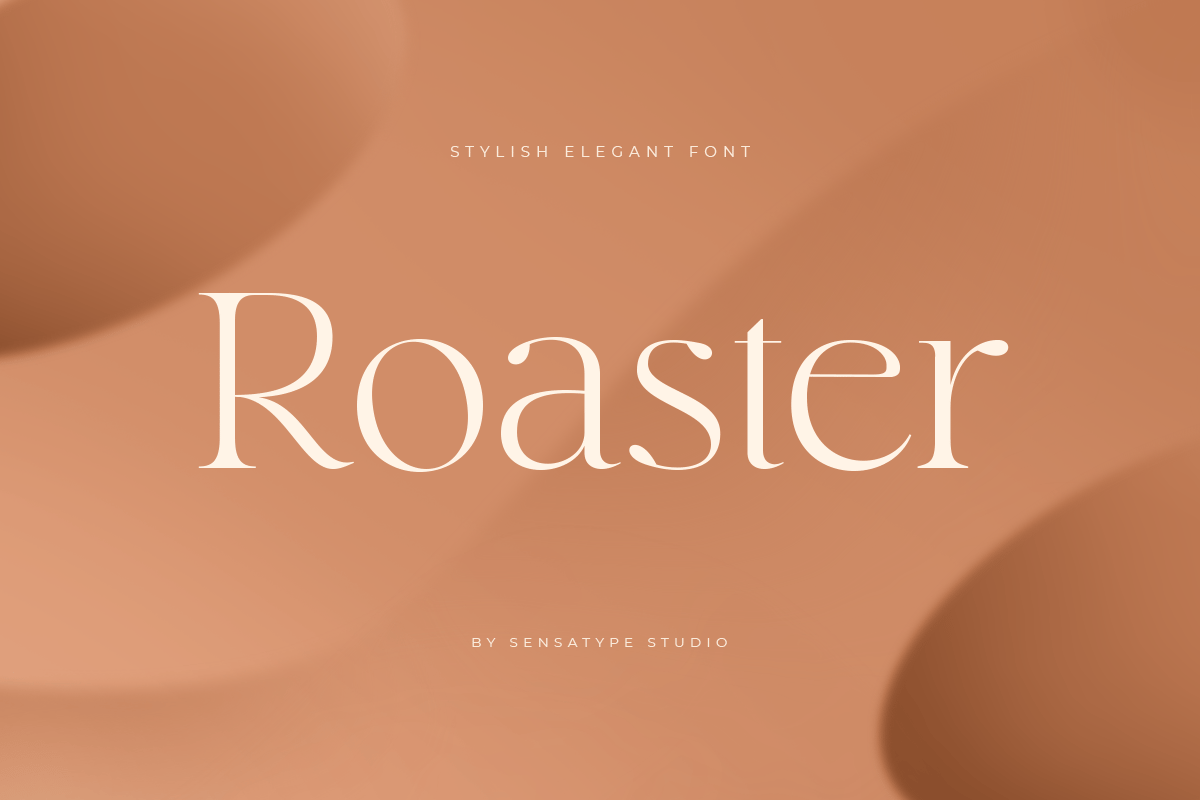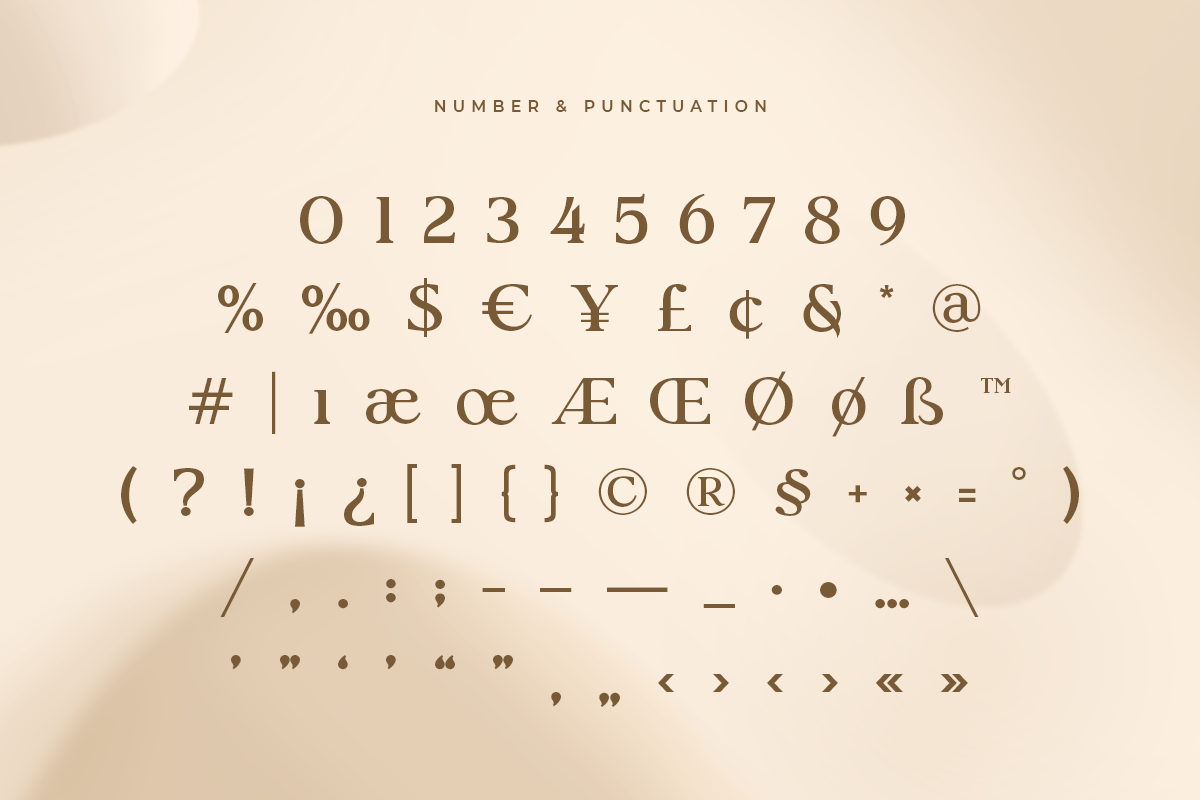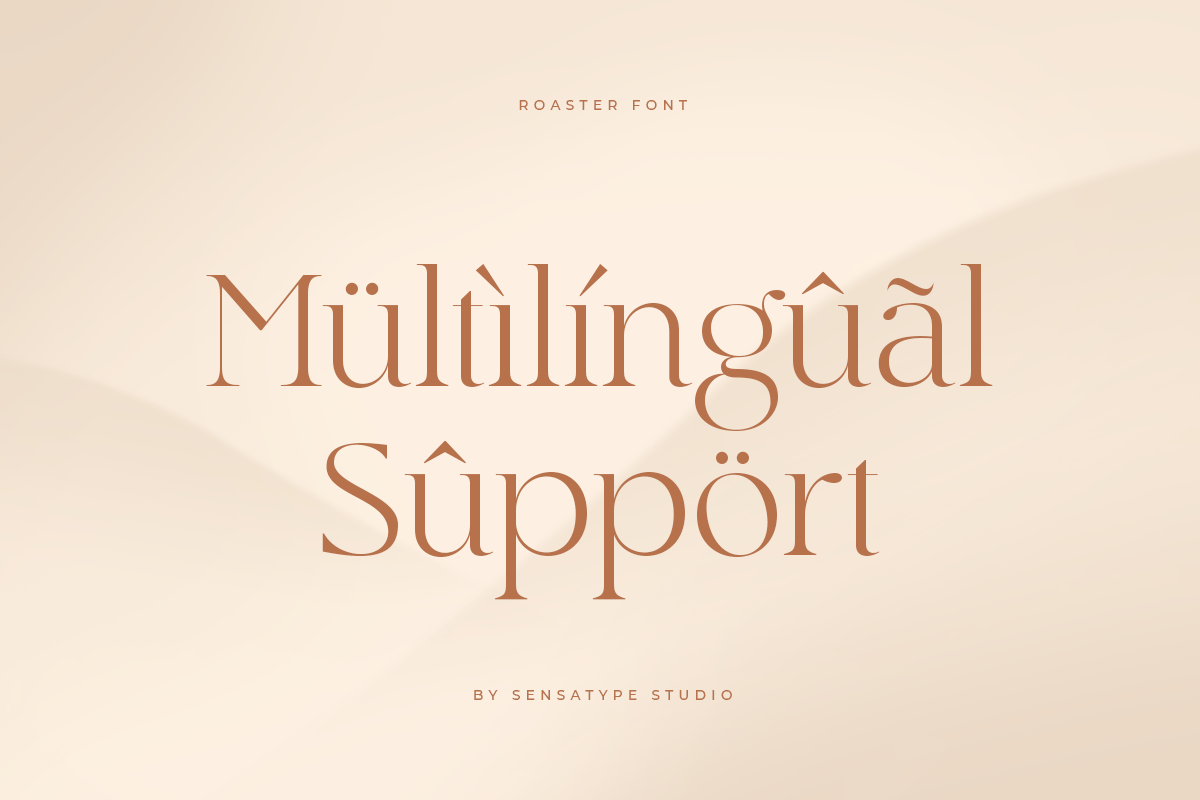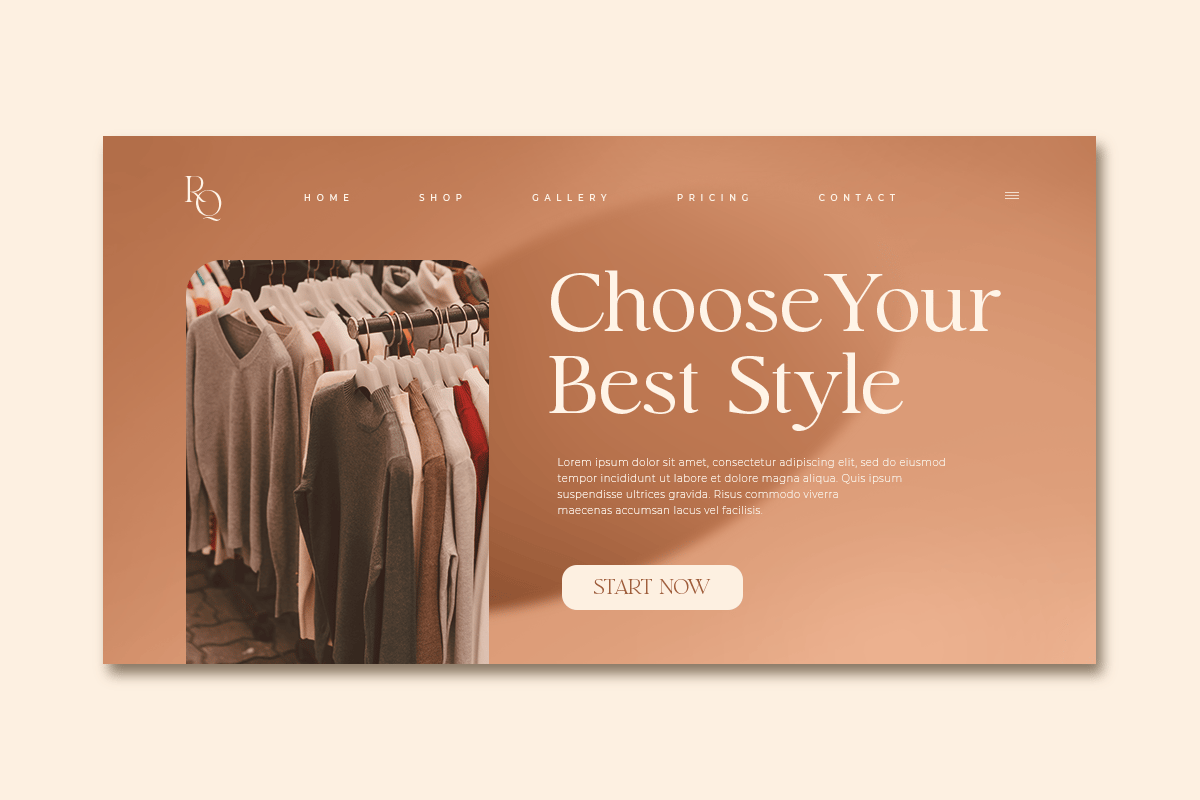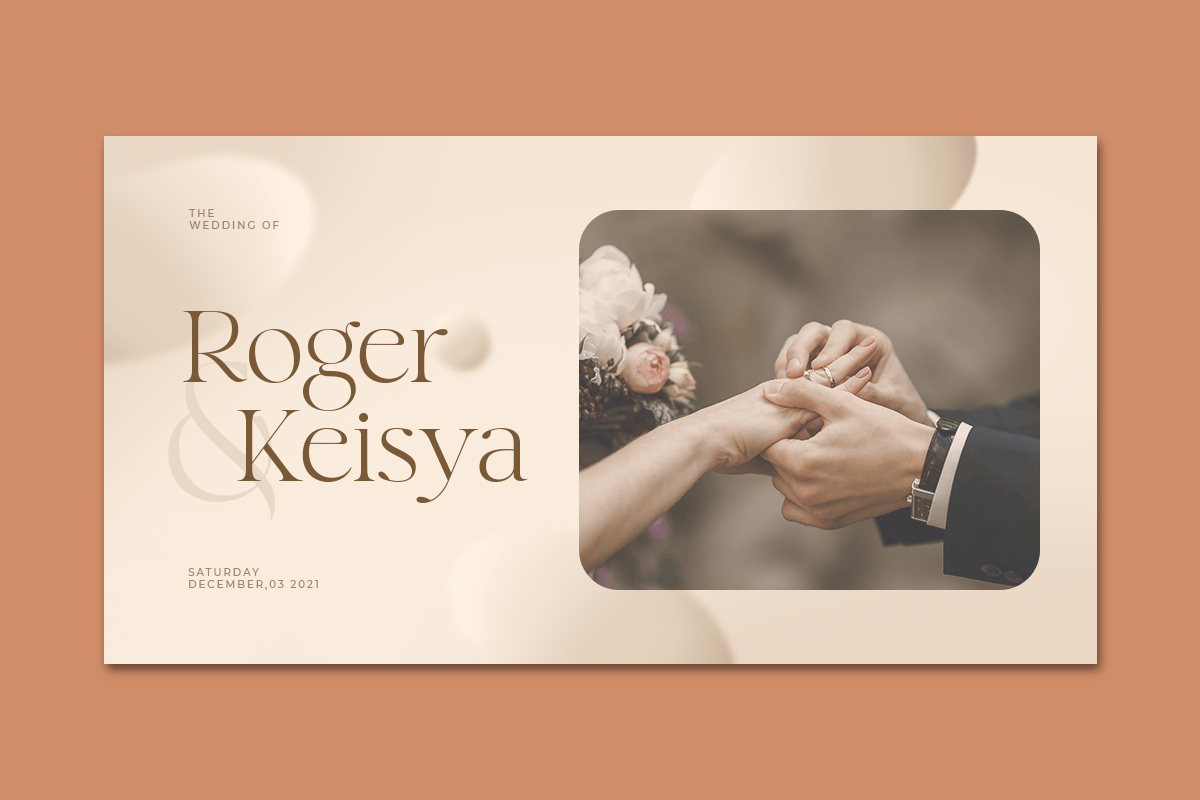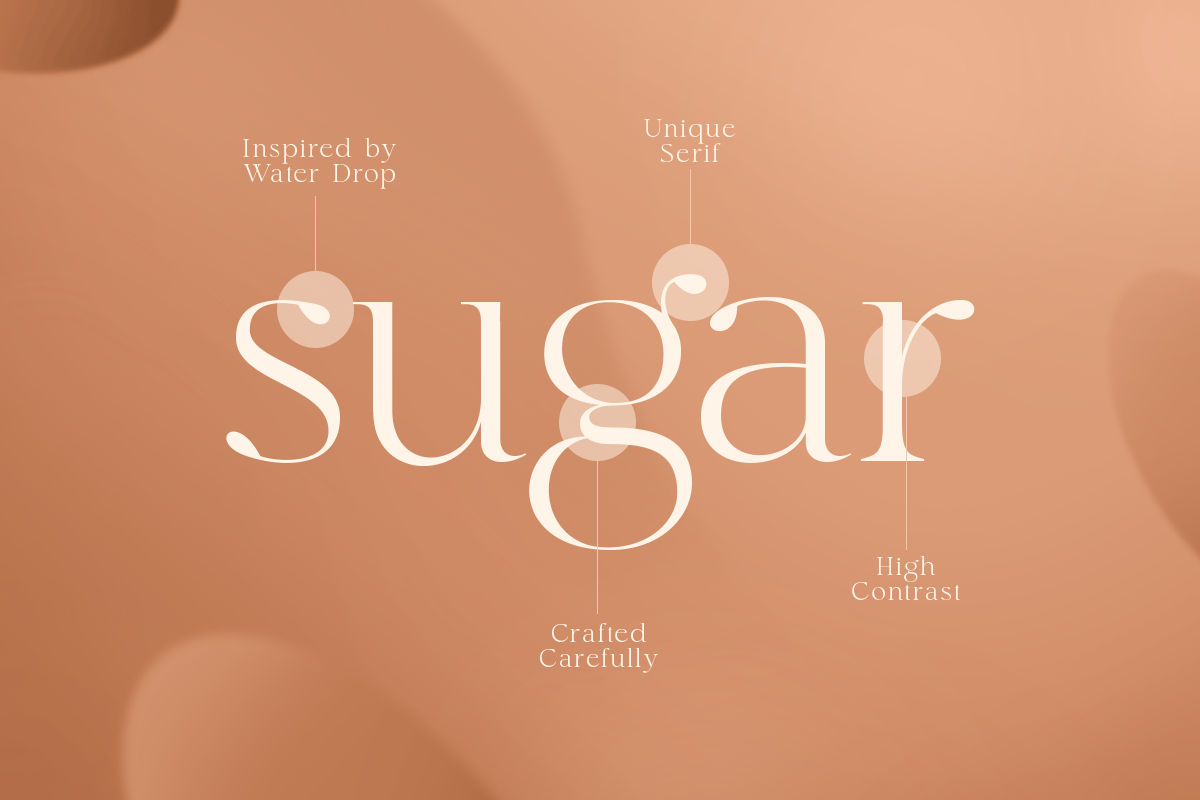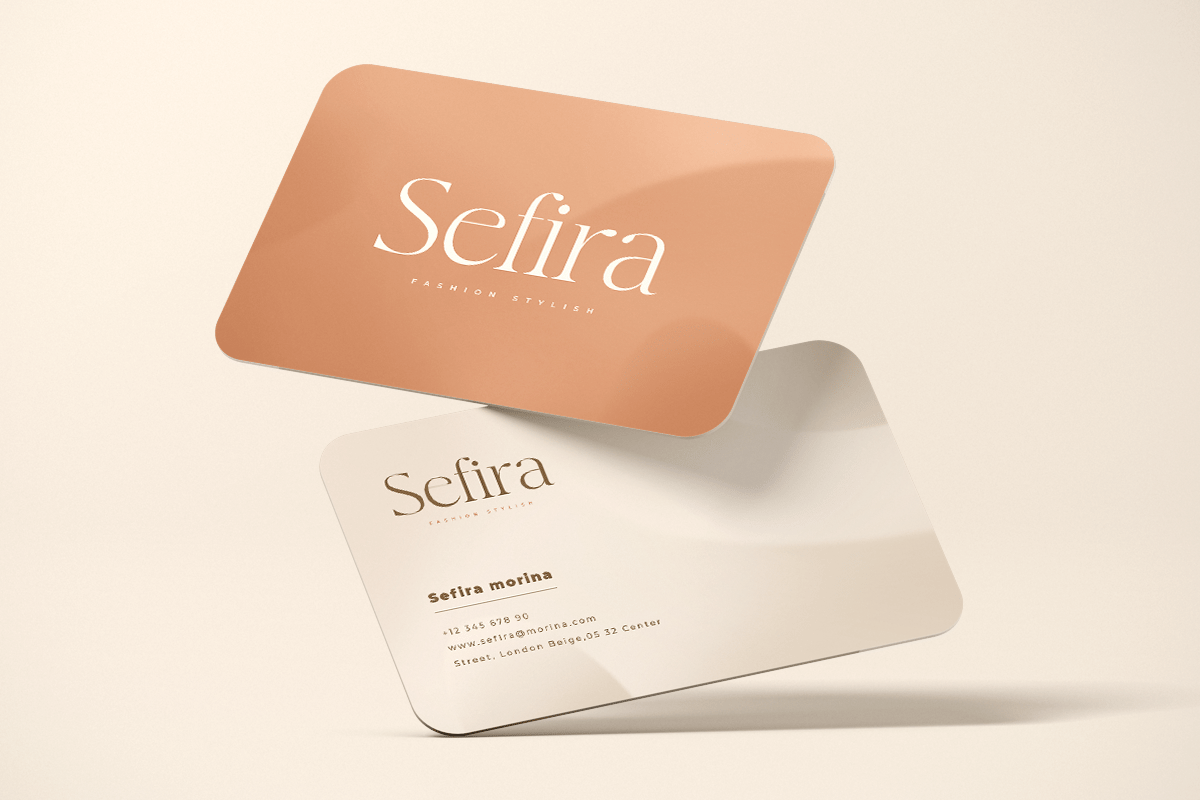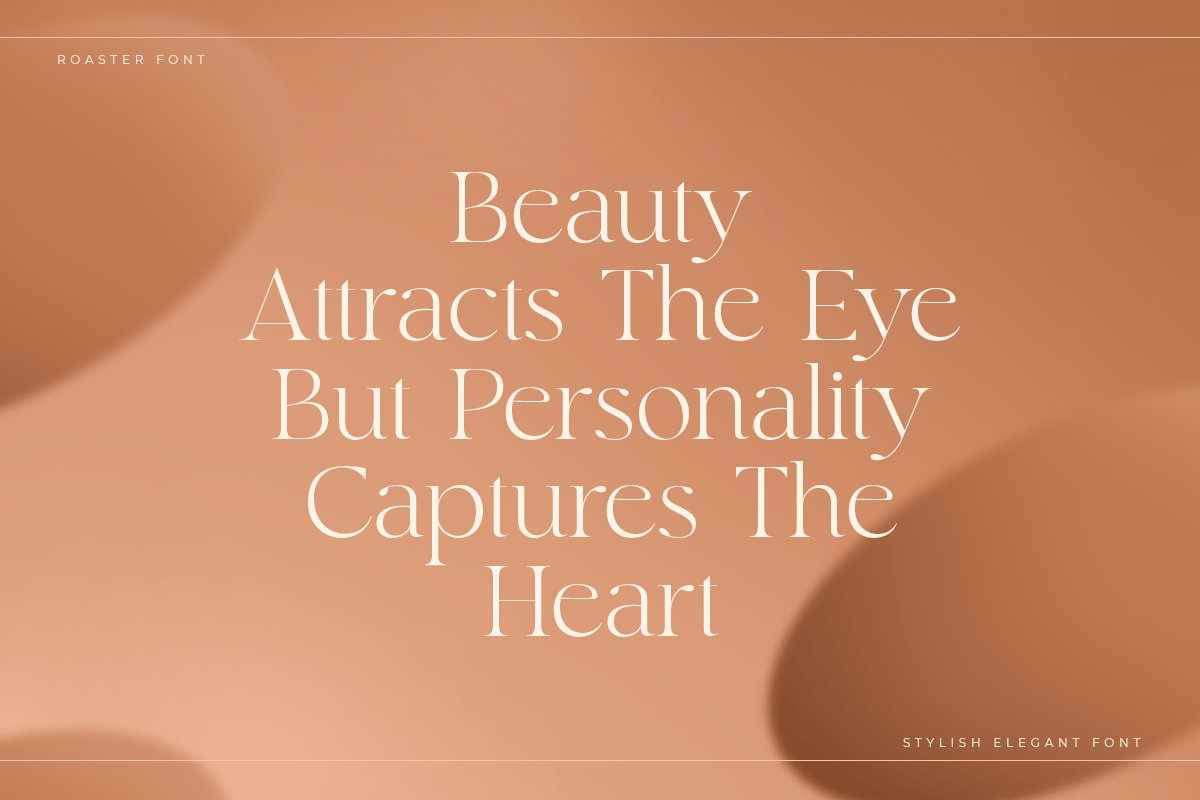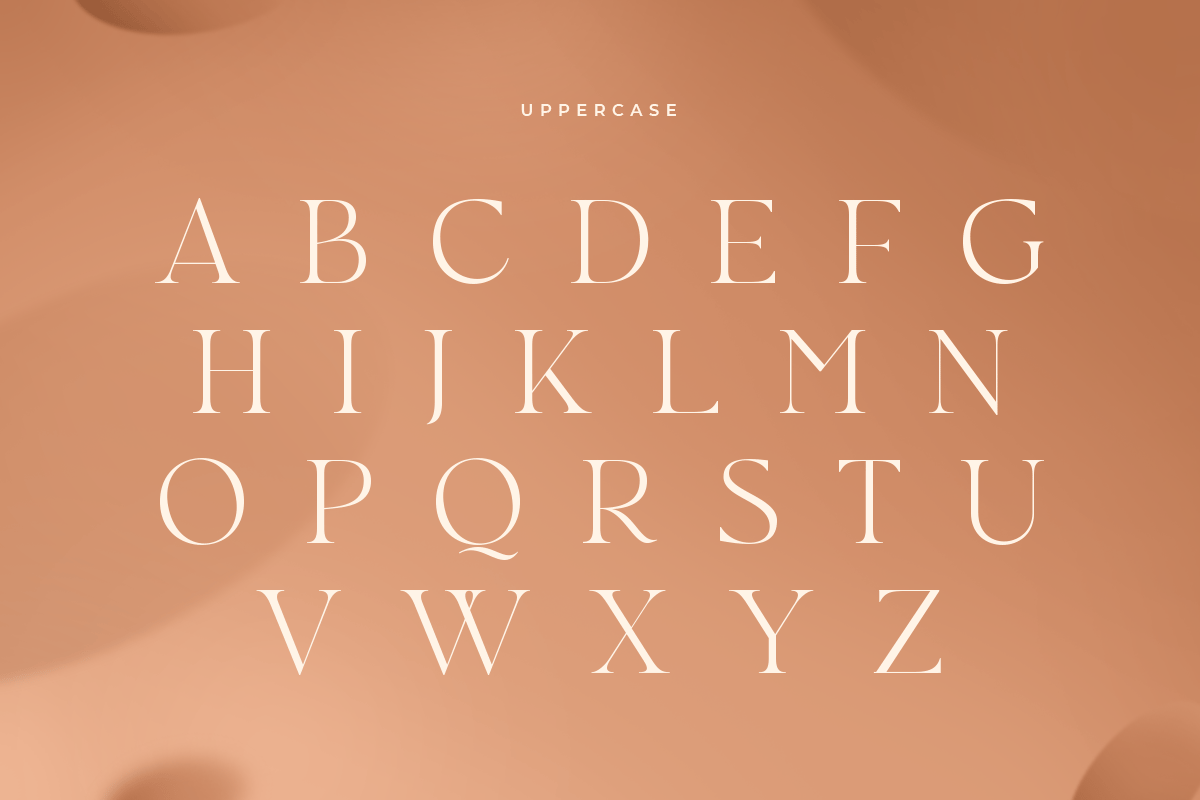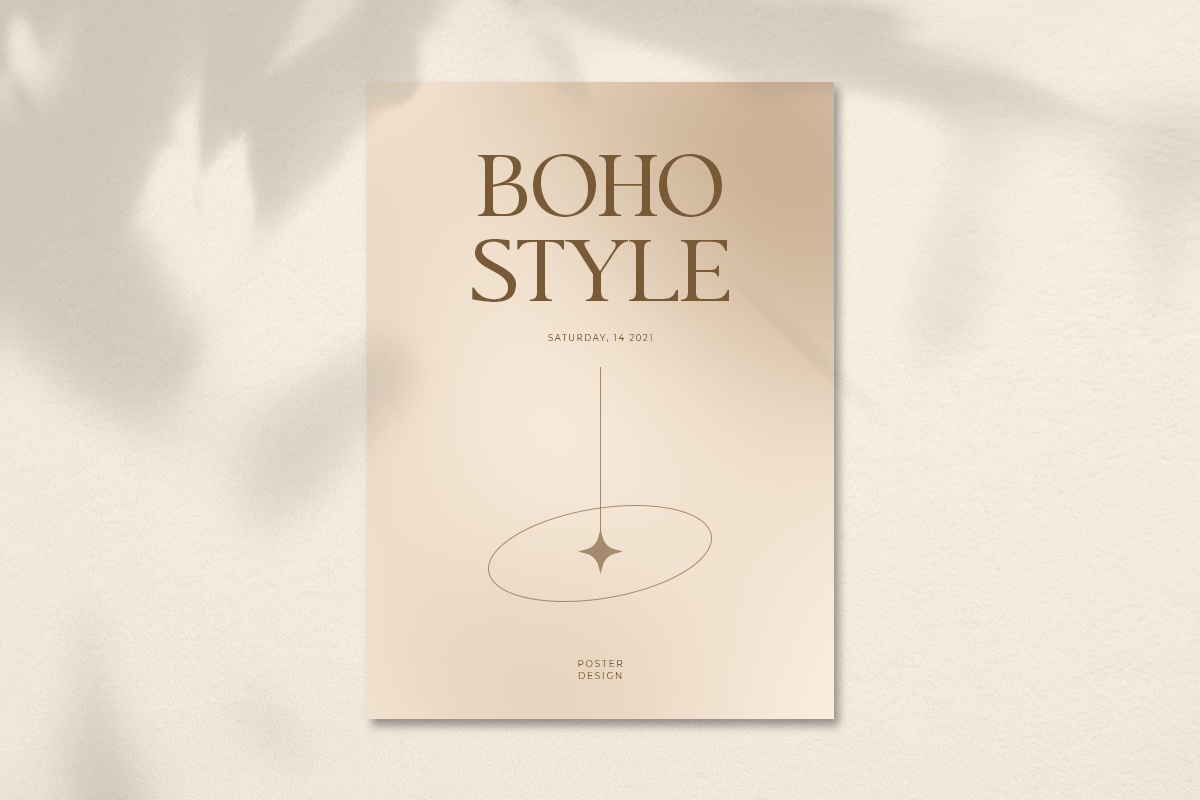
Roaster – Stylish Elegant Font
Roaster is a Stylish Elegant Font
In a new generations, we analyze that any designer or brand owner need to make their brand standout. As our focus that analyze any typeface that helps to leverage any logo design to look more modern and unique. We prepared this font with any unique characters to help you create unlimited variations for your creative needs.
Roaster font ready with:
- Any options to get creative variations with unique letters
- Preview as a inspirations that you can do with Roaster font
- Ready with Lowercase and Uppercase characters